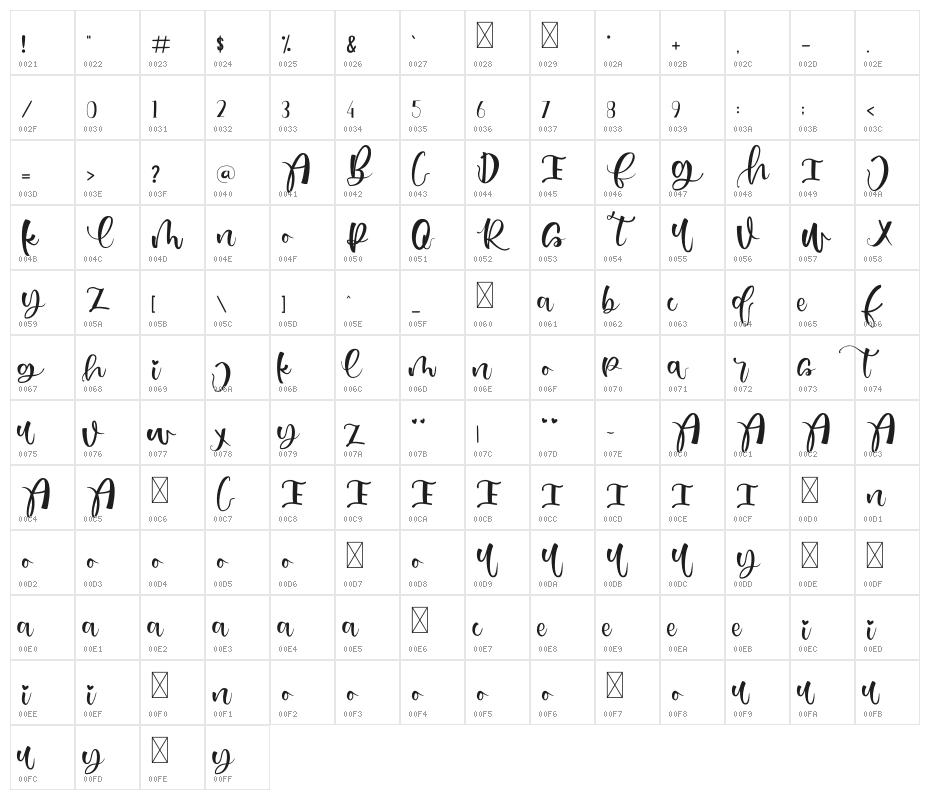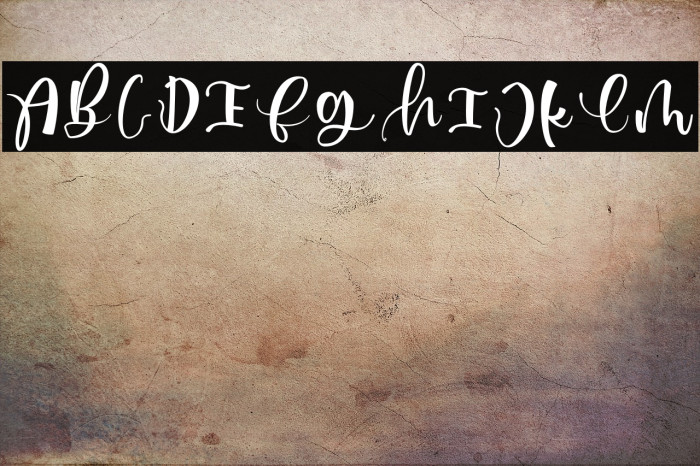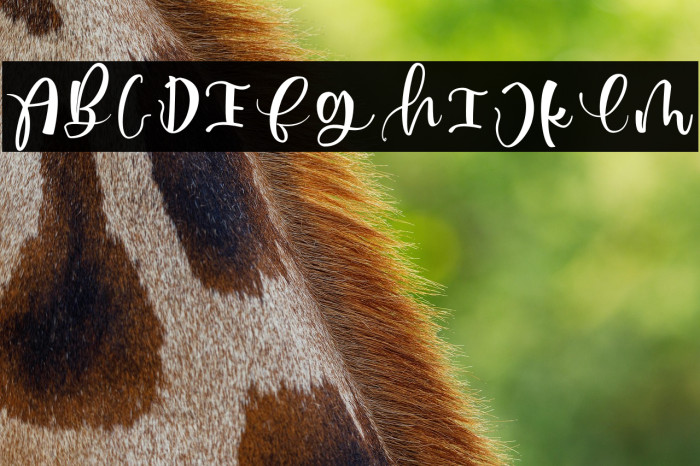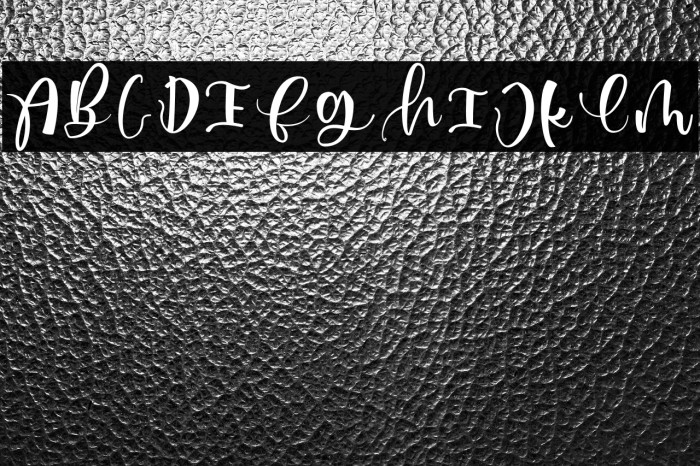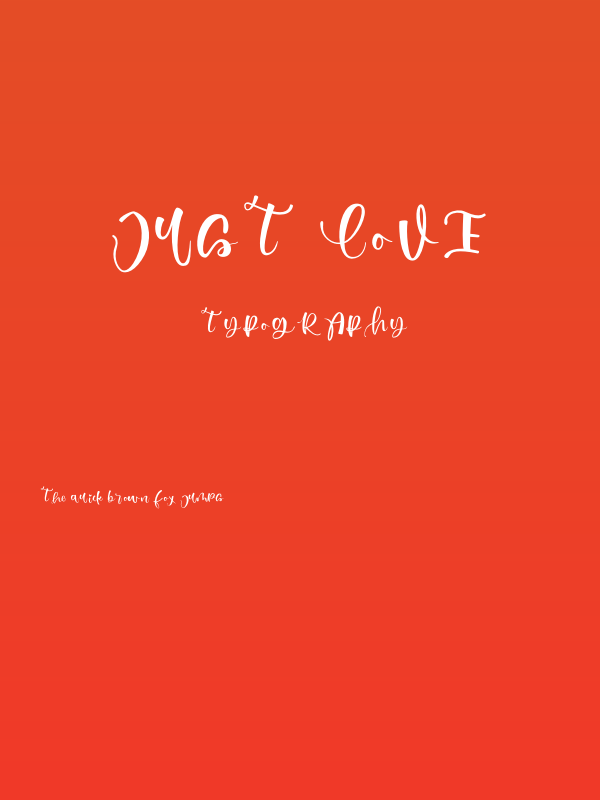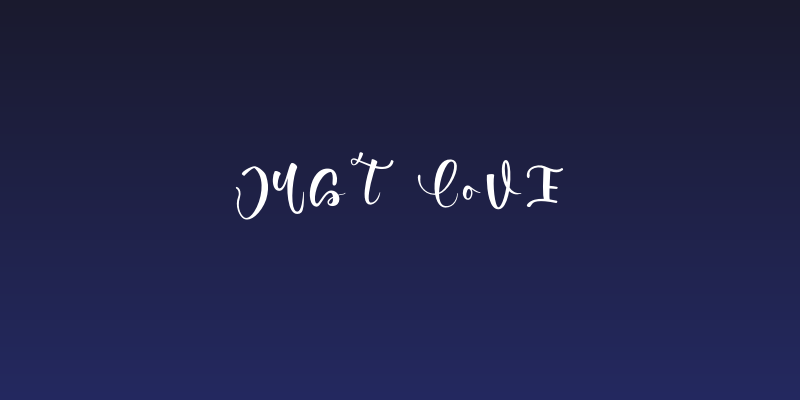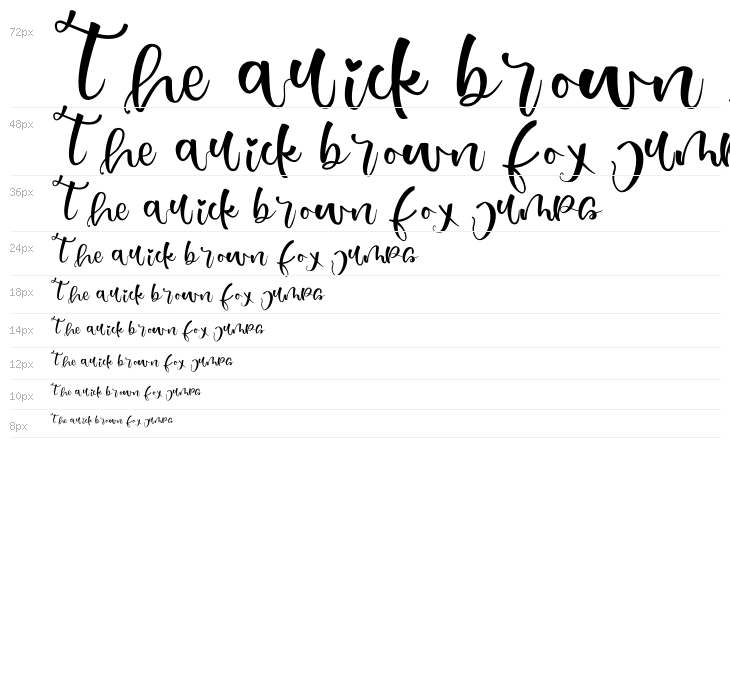
Just Love Font
Just Love Description
This font features a playful and whimsical script style, characterized by its flowing, cursive letters that exude a sense of elegance and charm. The uppercase and lowercase letters are designed with a consistent stroke width, giving them a balanced and harmonious appearance. The numerals are sleek and slightly slanted, complementing the overall script style. Special characters are creatively integrated, maintaining the font's artistic flair. The font's design is ideal for projects that require a touch of sophistication and creativity, making it suitable for invitations, greeting cards, and branding materials.